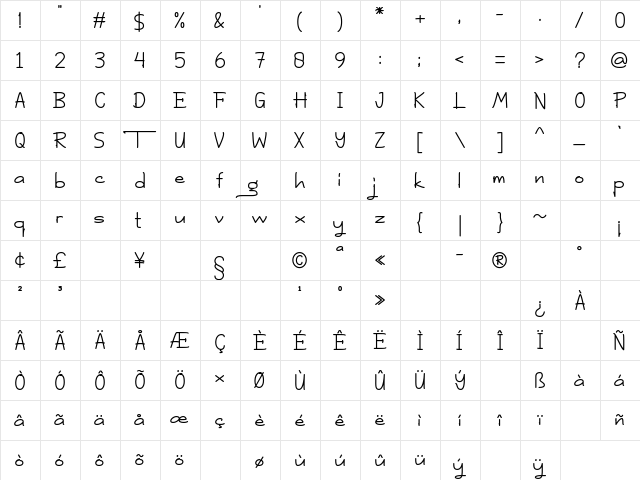
The Lightness Regular
Design Context for The Lightness Typeface
The Lightness is a composed and adaptable typeface that performs quietly and consistently across a wide range of design contexts. Its slender proportions lend an understated elegance to any composition.